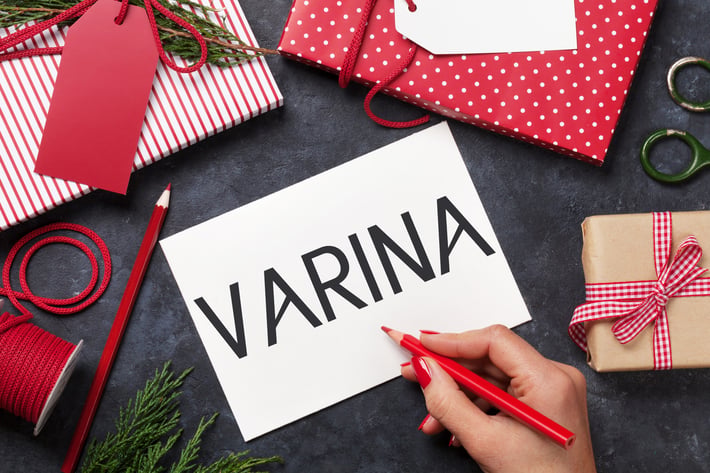
Varina Sans Serif Font Family
Varina Sans Serif is a geometric modern and soft sans serif typeface. Varina looks smooth in any layout with it's sleek rounded lines. You can use it for your magazines, brochures, editorial layouts, stationary, modern designs, logos, headlines, poster, tag design, newspaper ad design, headlines, banners and templates etc.
- Regular, Thin, Light, Outline and Bold Weights
Varina Font Features:
- Uppercase Multilingual Letters
- Lowercase Multilingual Letters
- Non English Characters ( Latin Supplement + Latin Extended A)